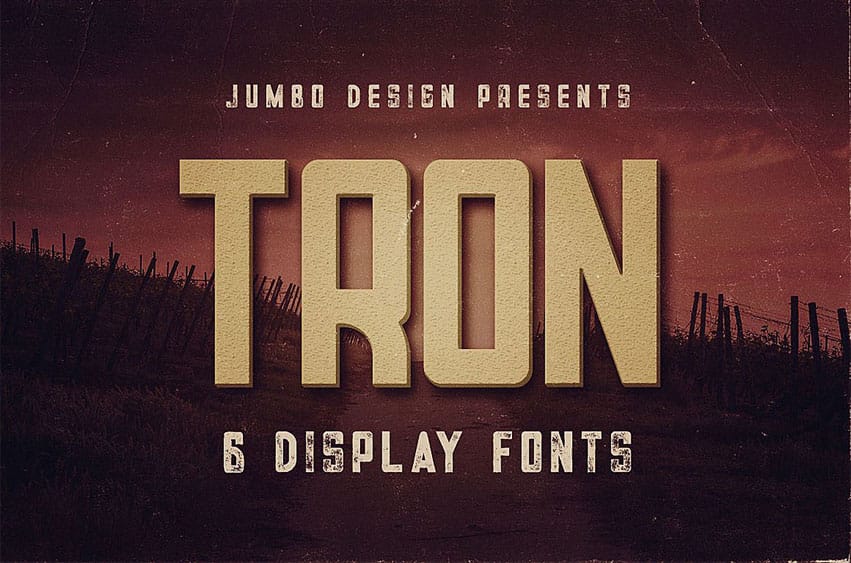
Tron Font is a uniquely crafted bold, retro yet modern style custom font with 6 styles: regular and grunge, inline bold and inline bold grunge, bold & bold grunge!
This is a high impact font that will leave your designs looking well crafted and stunning.